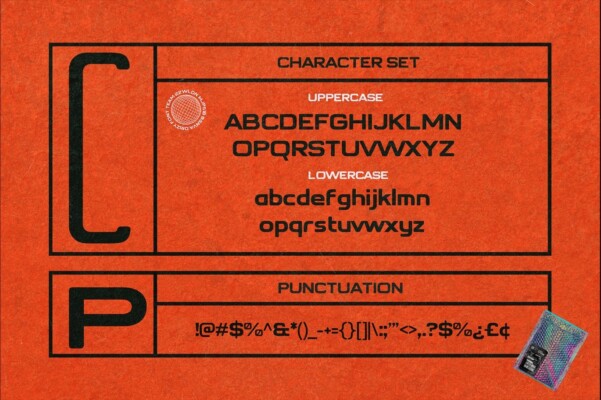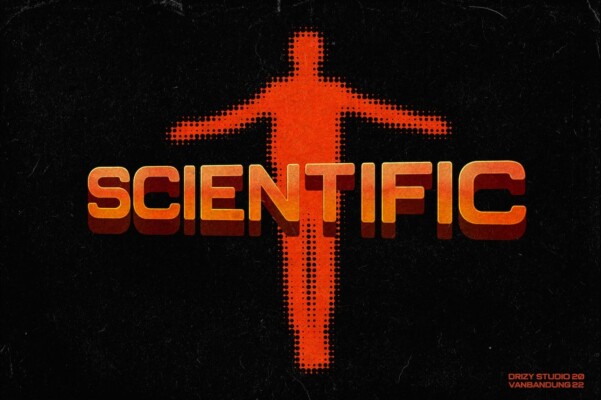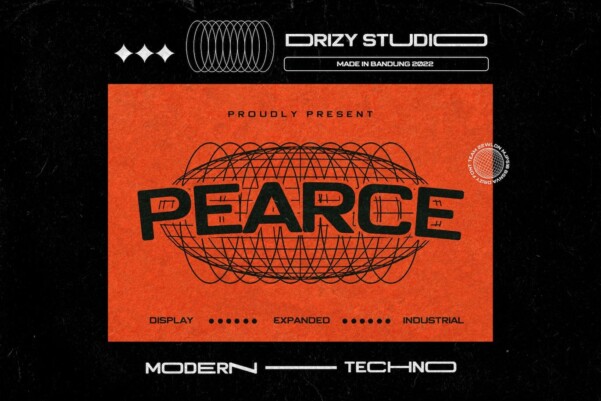
Pearce Font
Pearce Font is a modern techno font from Drizy studio. Offering all the basic styles you will need for a modern or industrial theme of your project.